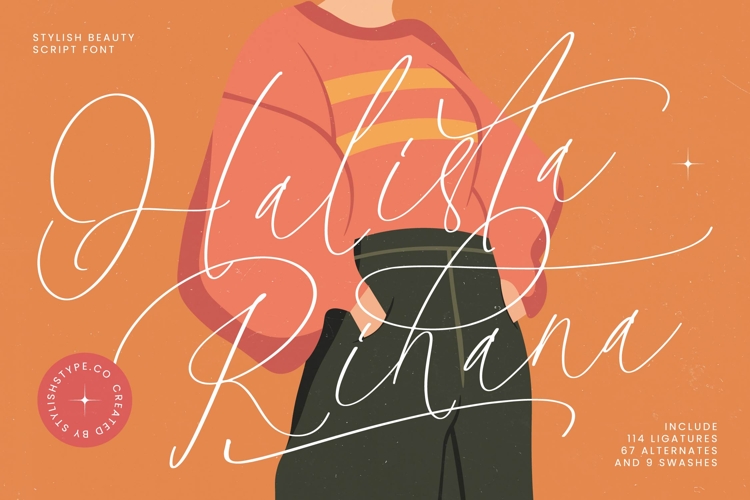
Halista Rihana is an exquisite display of elegance, designed to bring a soulful, editorial touch to your creative projects. This stylish beauty script font captures the delicate balance between high-end fashion and intimate, hand-drawn storytelling.